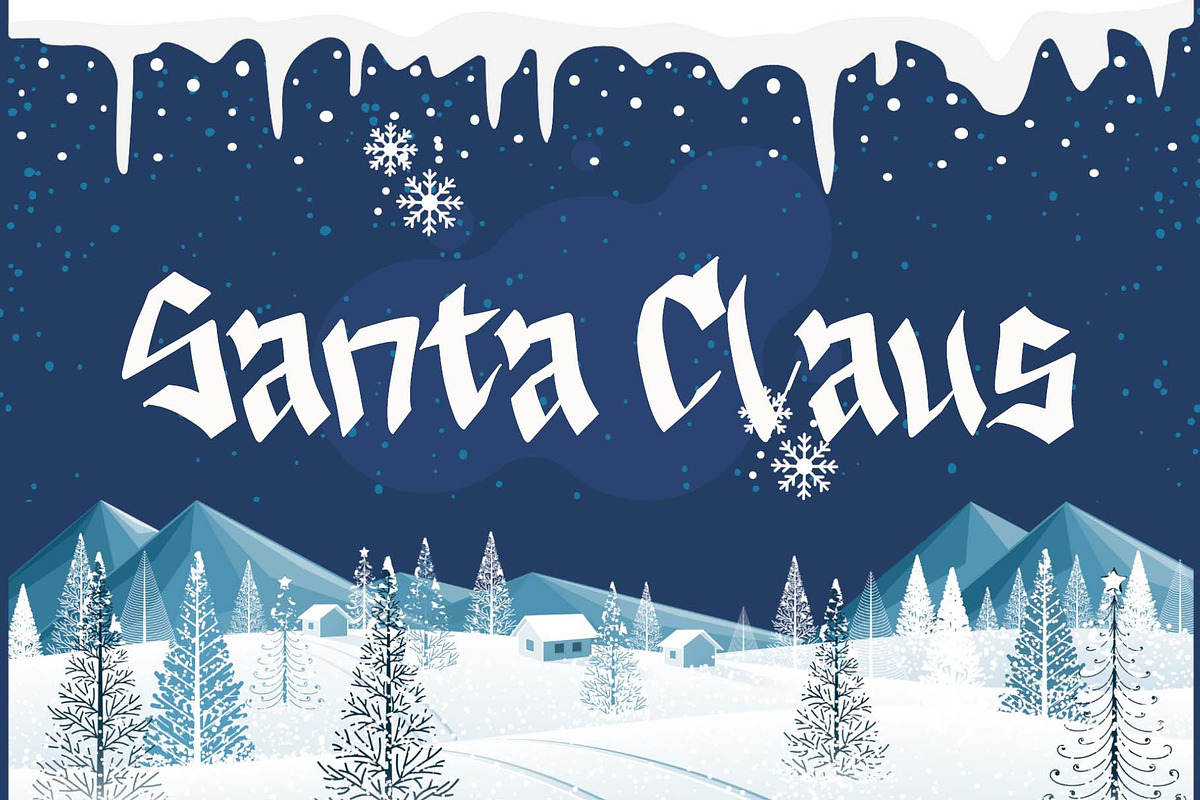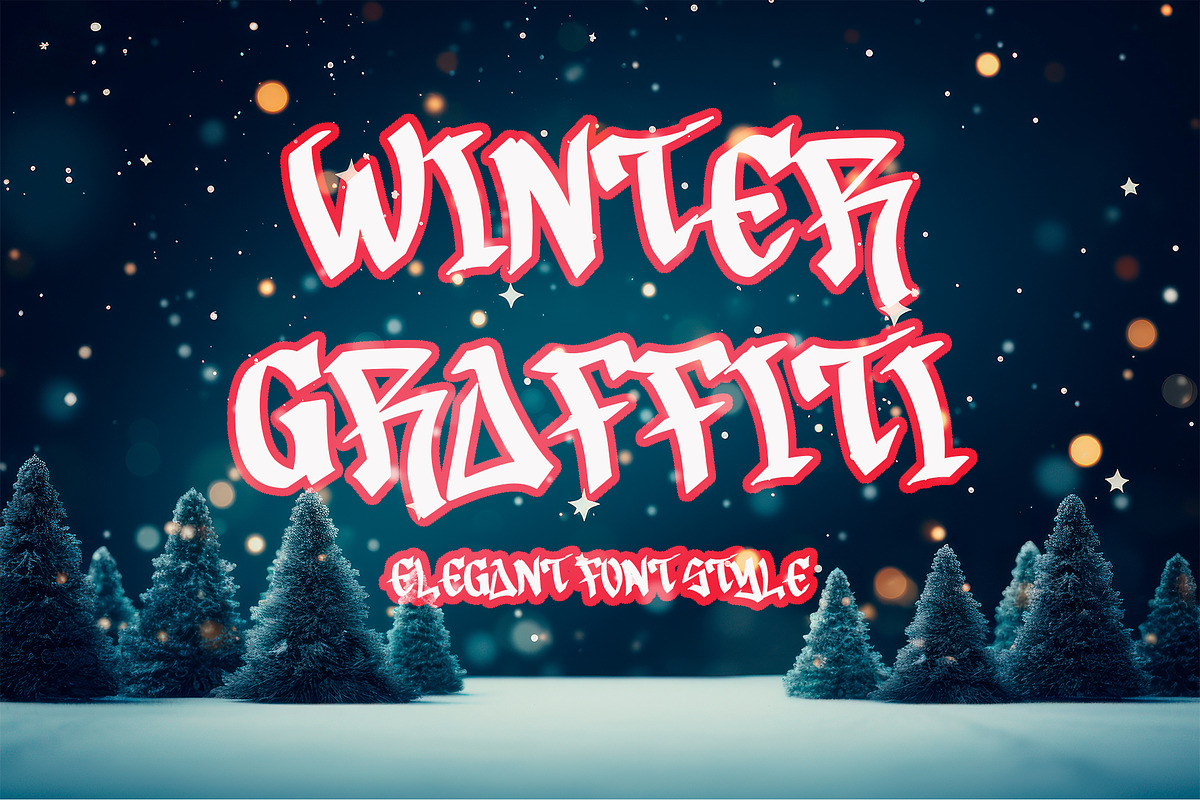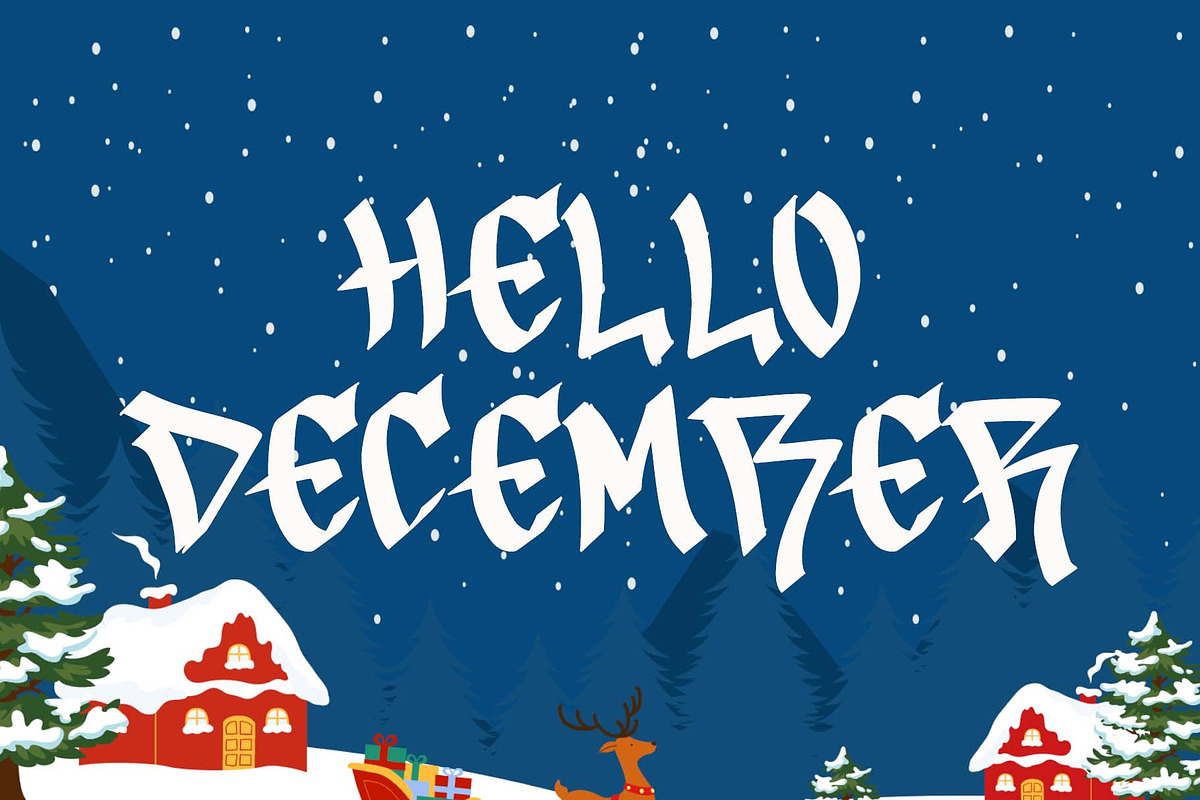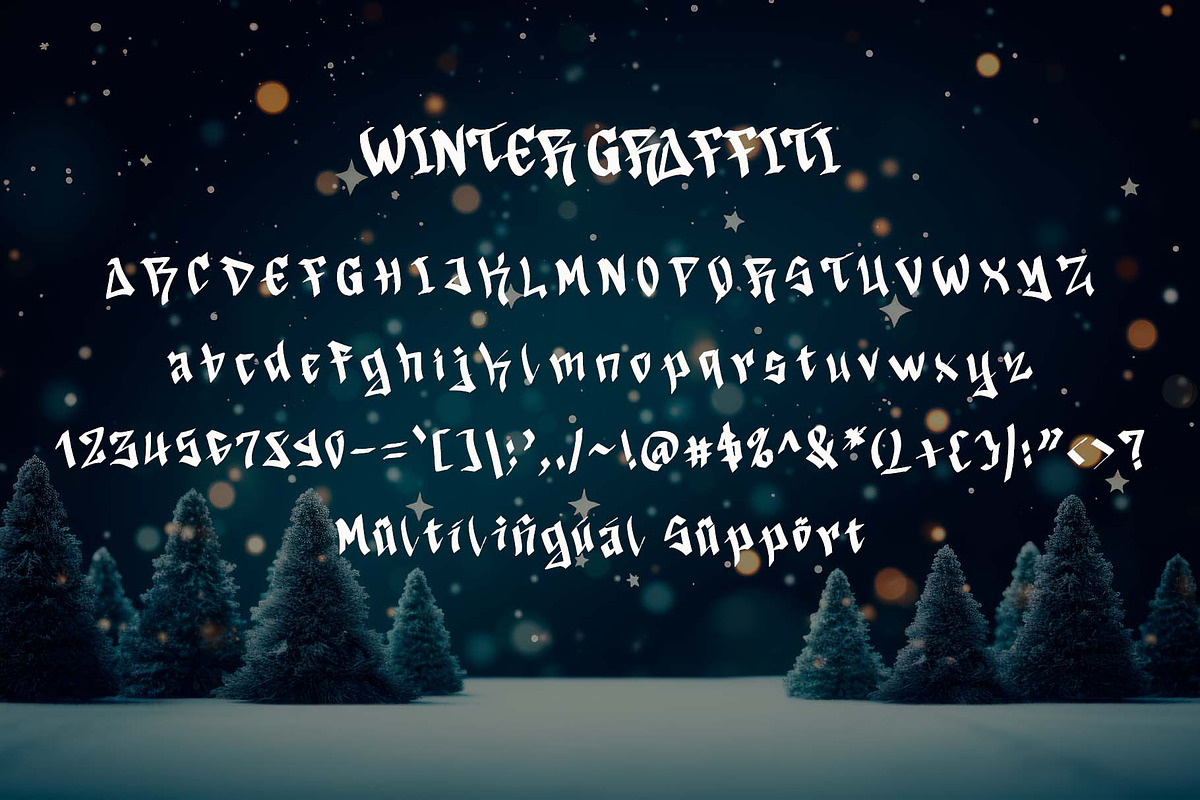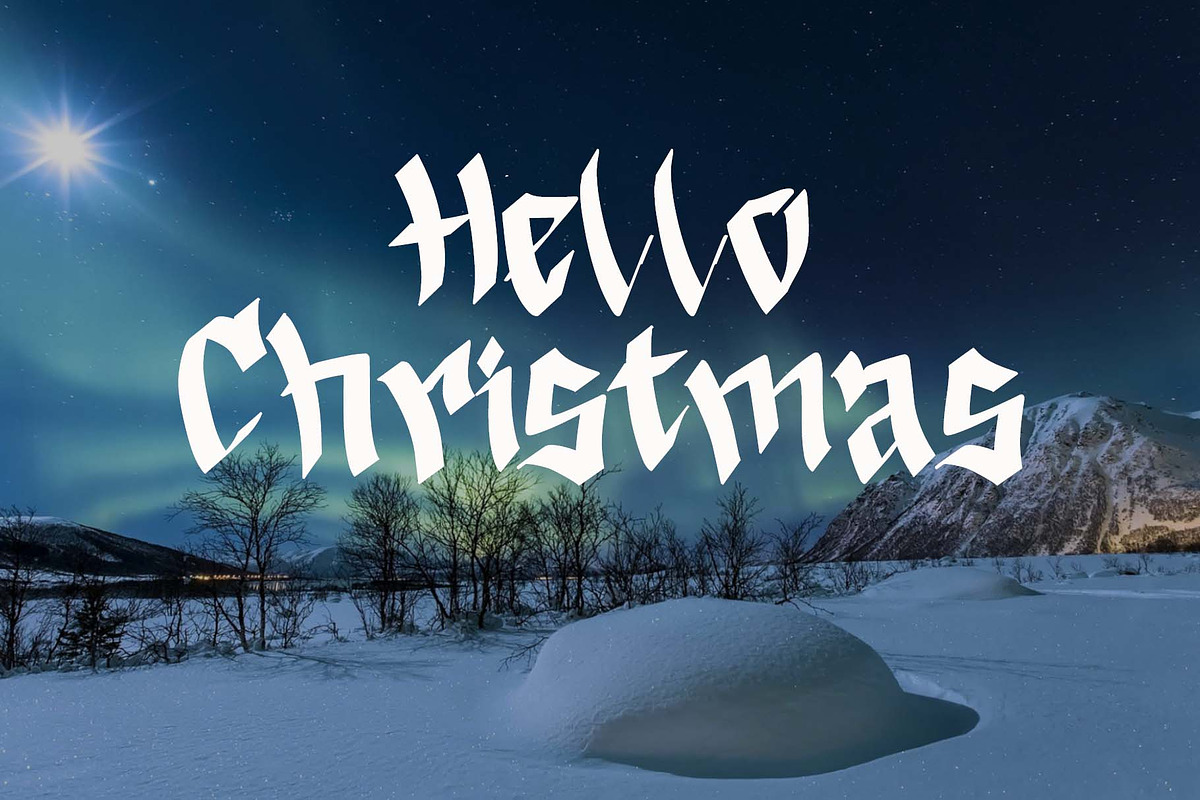
Winter Graffiti
"Winter Graffiti" is a unique and elegant graffiti font. This font is equipped with uppercase, lowercase, numerals, punctuation, and multilingual support. Very suitable for Christmas, winter, banners, posters, prints, branding, stickers, valentines, mugs, logos, tumblers, tattoos, t-shirts, and others.